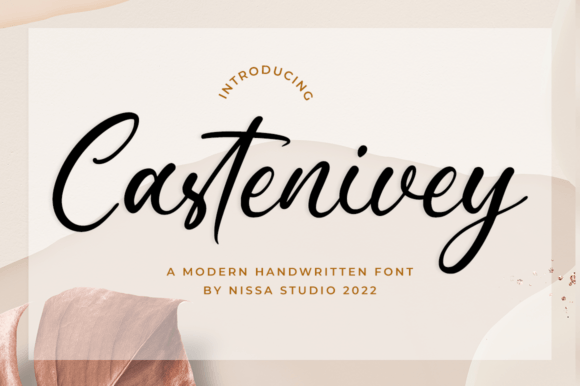
The Designer’s Dream Font: Castenivey
Have you ever been working on a design project, pouring your heart and soul into it, and suddenly realized that something is just missing? For me, that something was a beautiful, delicate handwritten font that could add a touch of luxury to my design. I was working on a branding project for a high-end fashion client, and I just couldn’t find the right font to match their elegant and sophisticated vibe. That’s when I stumbled upon Castenivey, and it completely transformed my design!
First Impressions: A Beautiful Handwritten Font
Castenivey is a stunning handwritten font that exudes elegance and sophistication. Its unique feel and delicate strokes make it perfect for adding a touch of luxury to any design project. The font is PUA encoded, which means you can easily access all the amazing glyphs and ligatures, making it a dream to work with.
- ✨ Beautiful, delicate handwritten strokes
- ✅ Unique feel that sets it apart from other fonts
- 💫 PUA encoded for easy access to glyphs and ligatures
- 🎉 Perfect for luxury branding, packaging, and advertising
- 🤔 May not be suitable for body text due to its delicate nature
- ⚠️ Limited availability of bold or italic variations
The Designer Inspiration Behind Castenivey
Castenivey was designed with the intention of creating a beautiful, elegant handwritten font that could add a touch of luxury to any design project. The designer, [designer name], drew inspiration from classic calligraphy and modern digital design to create a font that is both timeless and contemporary.
Q: What is PUA encoding, and how does it benefit the user?
A: PUA (Private Use Area) encoding allows designers to access a range of glyphs and ligatures that are not available in standard fonts. This means that users can easily access and use the unique characters and swashes in Castenivey.
Q: Is Castenivey suitable for body text?
A: While Castenivey is a beautiful font, it may not be suitable for body text due to its delicate nature. It’s best used for headlines, titles, and short paragraphs.